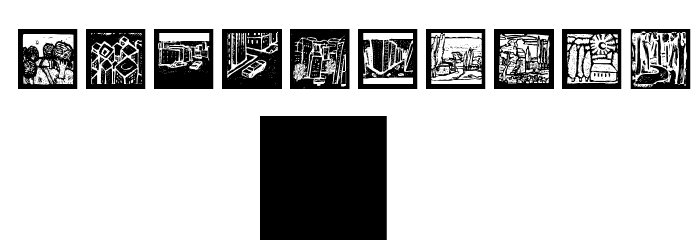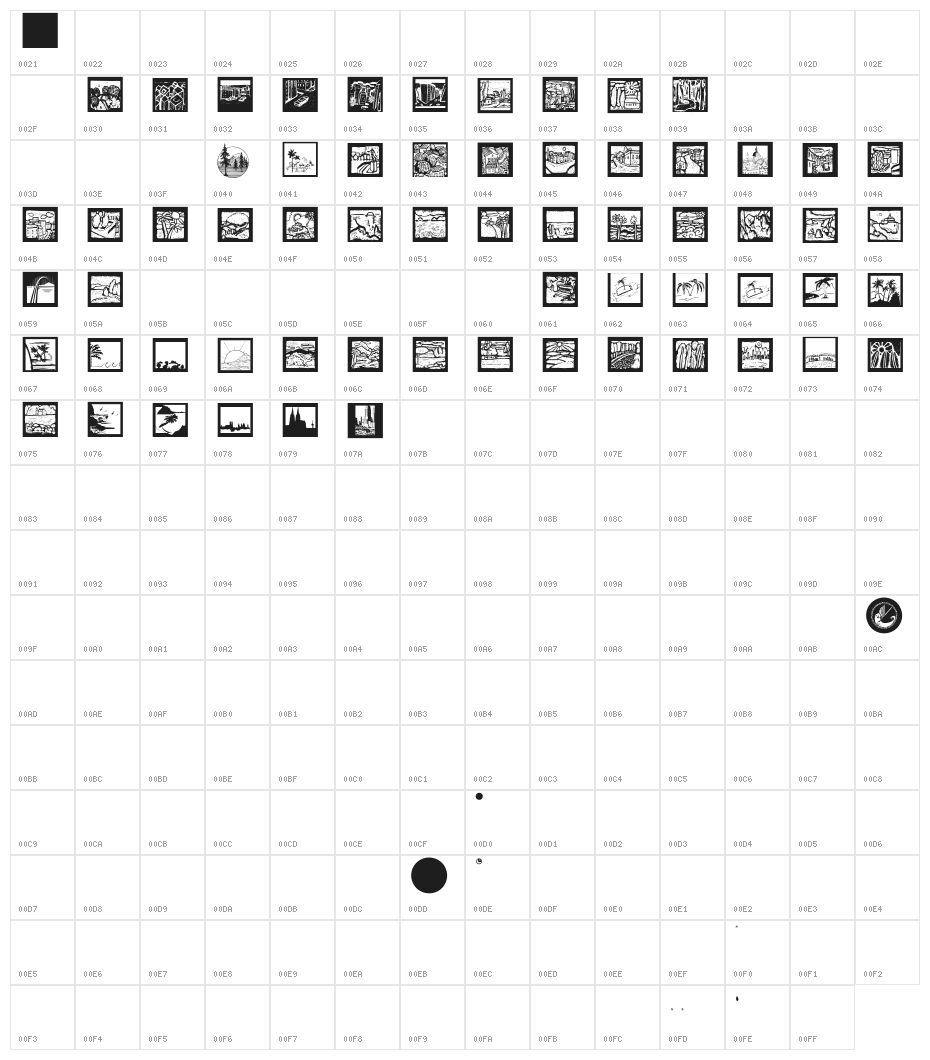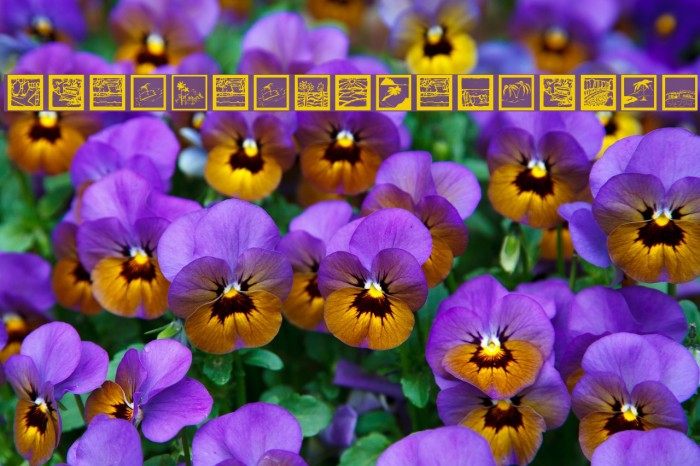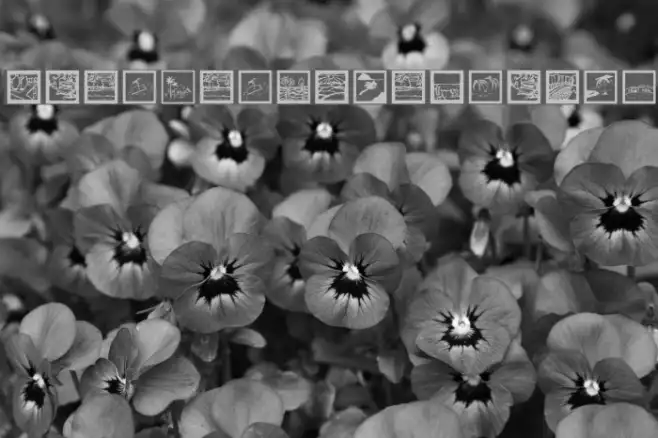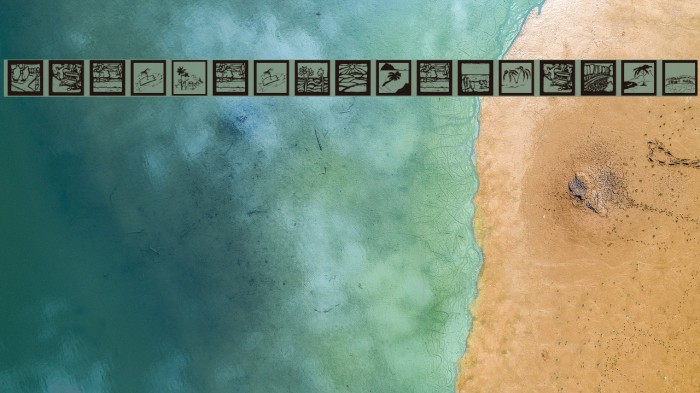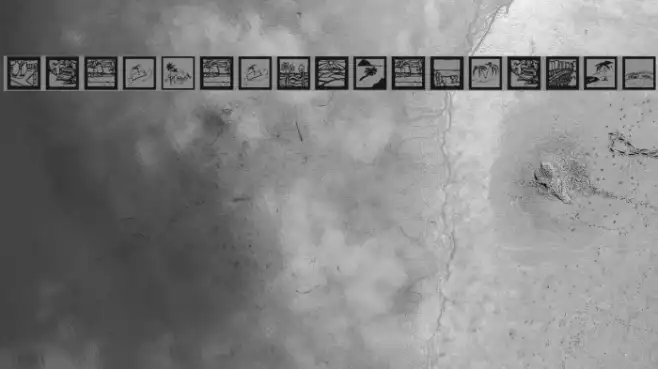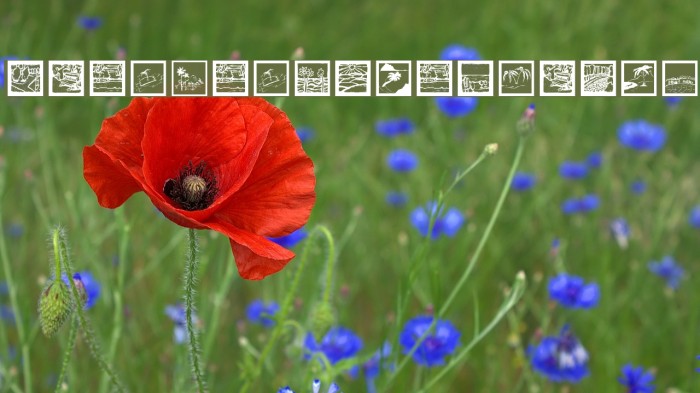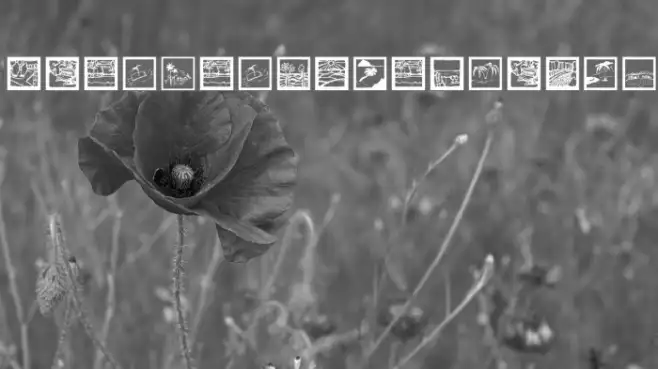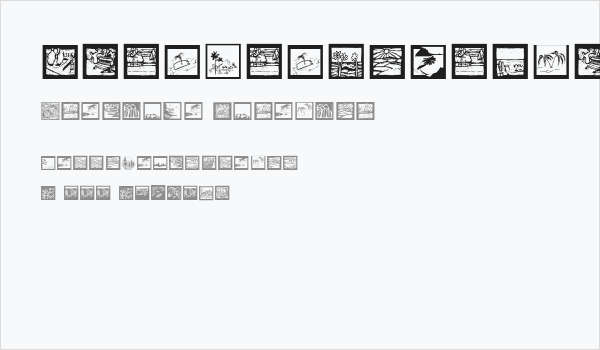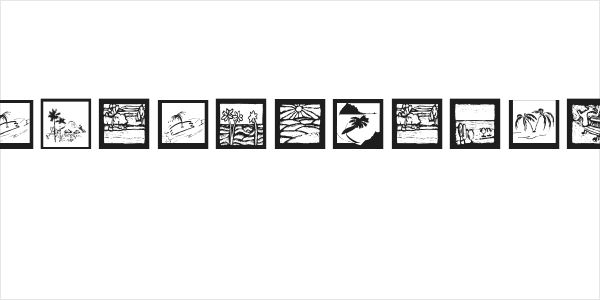
LandAndTownScapes Font
LandAndTownScapes Description
A decorative display font composed of hand-drawn, high-contrast black and white illustrations representing various landscapes, townscapes, and architectural scenes within square frames. Each character is a unique, detailed pictogram rather than a traditional letterform, evoking a linocut or woodcut printmaking style.
| Overall Style | Decorative, Artistic, Hand-drawn |
| Use Case | Logos, Headlines, Posters, Artistic projects |
| Proposed Projects | Art posters, book covers, educational materials, creative branding, event invitations, decorative initials. |